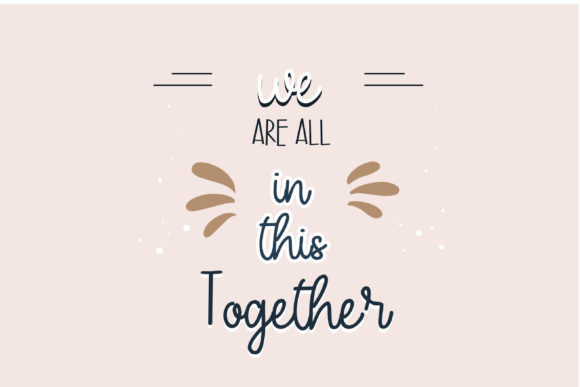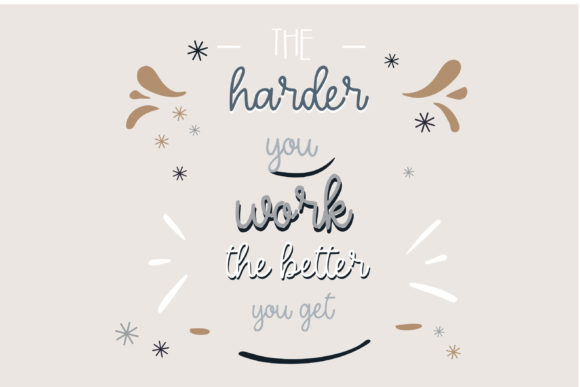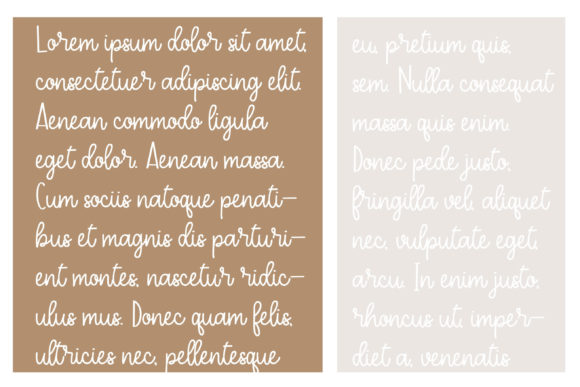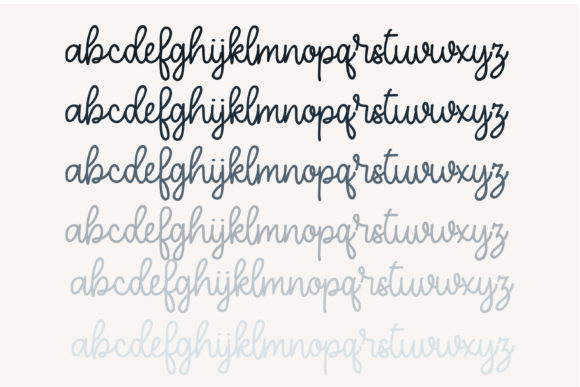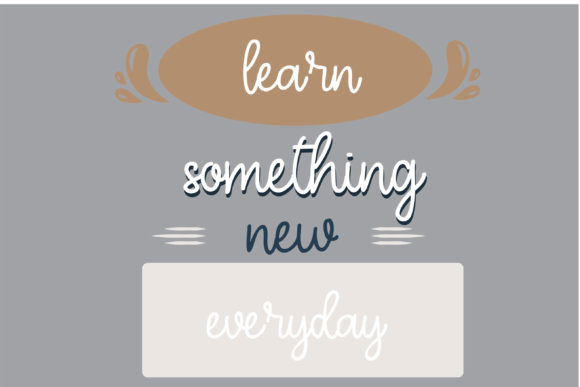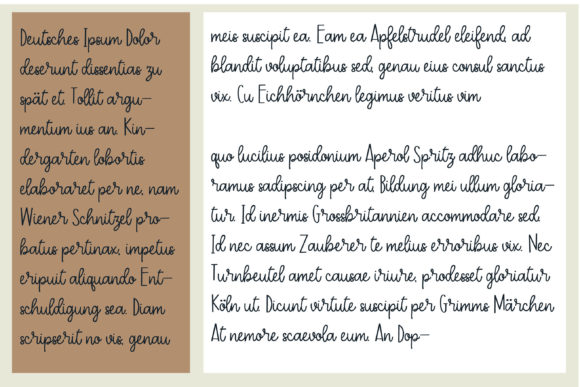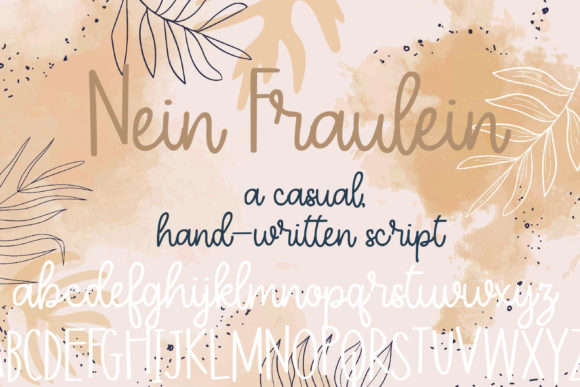
ZP Nein Fraulein Font
About ZP Nein Fraulein Font
This casual hand-written script font features a print-like uppercase style. Its relaxed and informal appearance is perfect for adding a personal touch to all your delightful designs!
The font’s casual and hand-written script exudes a sense of informality and authenticity. Whether you’re working on invitations, social media graphics, posters, or any other project that calls for a personal and down-to-earth feel, this font has the potential to enhance your work with its charming and artistically crafted aesthetic.
The juxtaposition of the hand-written lowercase characters with the print-like uppercase characters offers a dynamic contrast, adding visual interest to your designs. This feature enables you to create designs that balance a personal touch with a touch of structure.
In essence, this casual hand-written script font is more than just a font—it’s a creative tool that brings a sense of warmth and individuality to your ideas. Its combination of casual and print-like elements makes it a valuable asset for designers striving to create designs that are both personal and visually engaging, leaving a lasting impression.